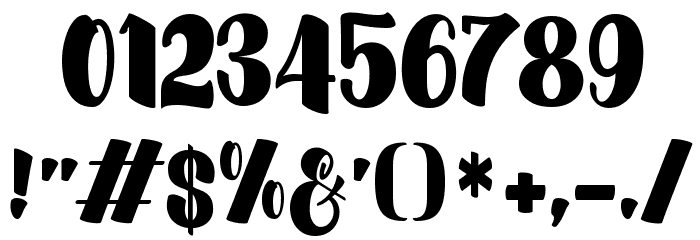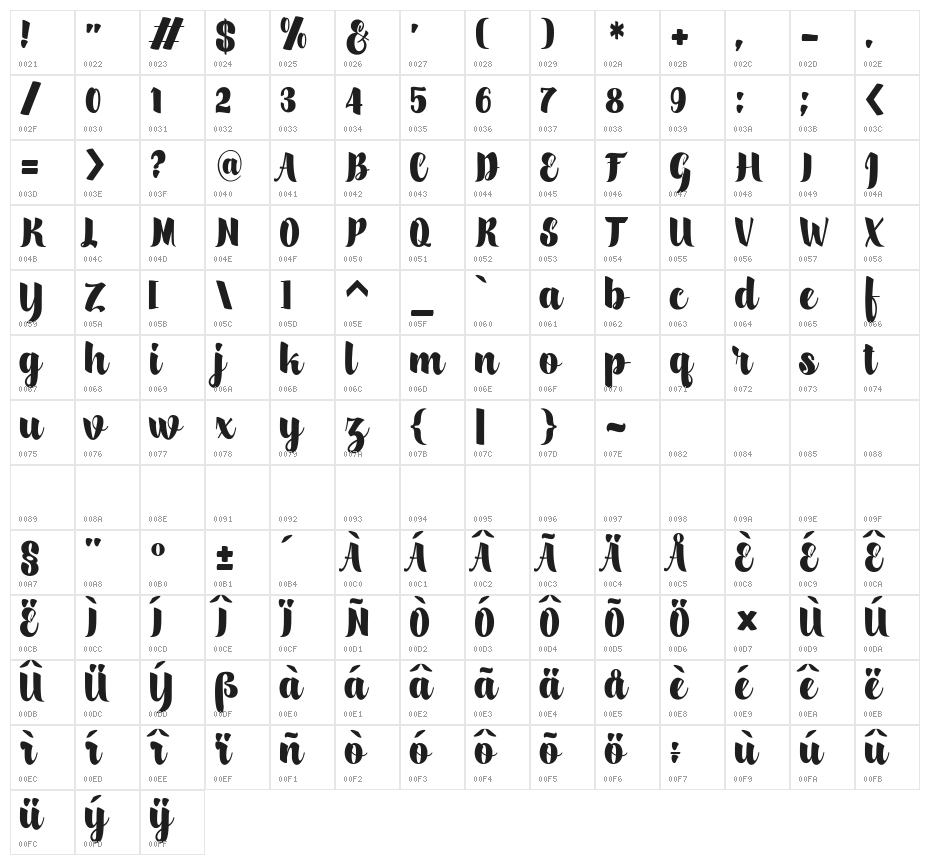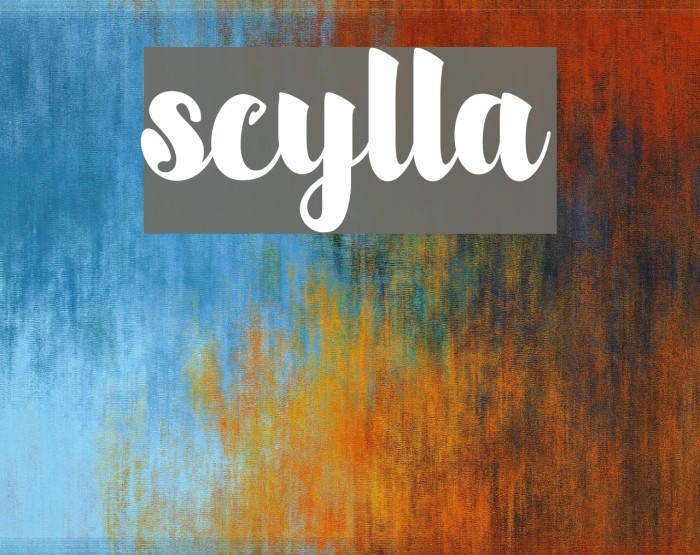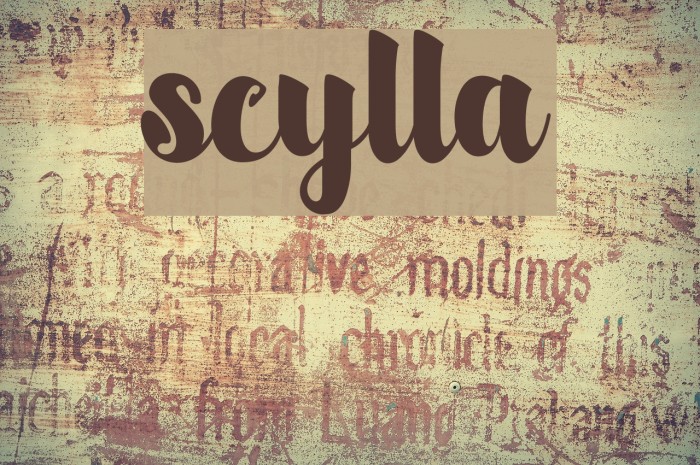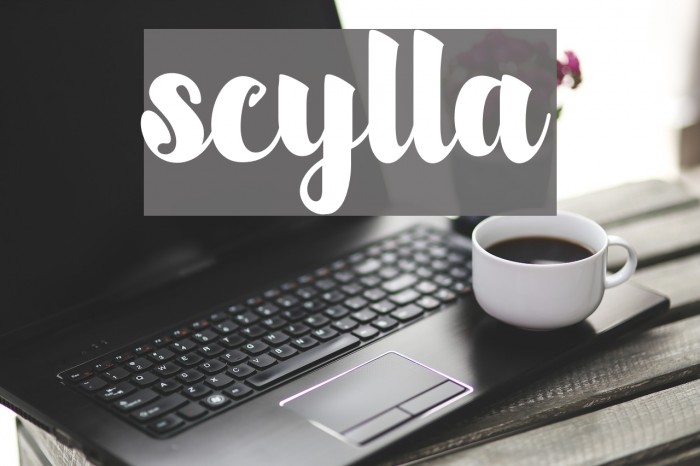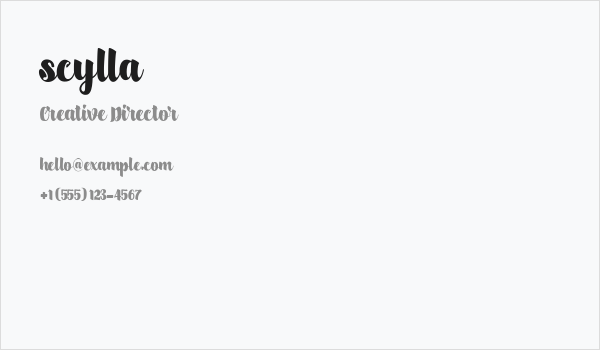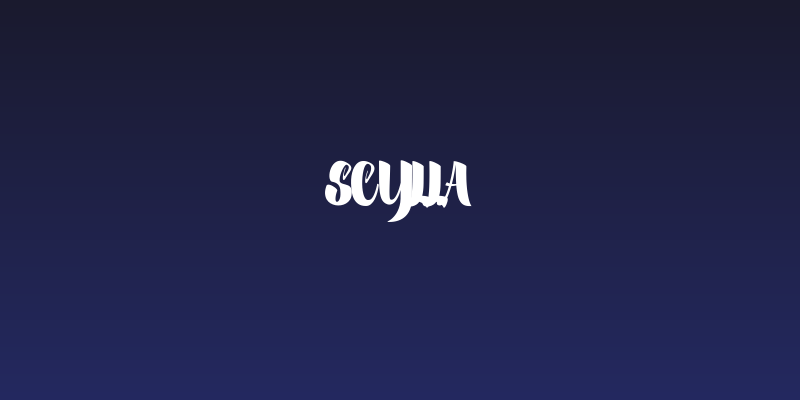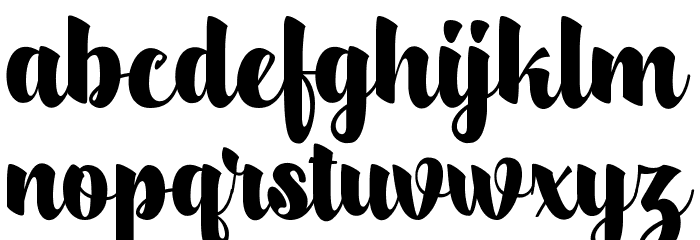
scylla Font
scylla Description
This font features a bold and expressive script style, characterized by its flowing curves and dynamic strokes. The uppercase letters exhibit a strong presence with their thick lines and elegant swashes, while the lowercase letters maintain a cohesive and fluid appearance. The numerals are equally bold, ensuring readability and impact. Special characters are designed with the same attention to detail, providing a harmonious look across all glyphs. The overall design is both playful and sophisticated, making it suitable for a variety of creative applications.
Use CaseLogos, Headlines, Invitations
Proposed ProjectsIdeal for branding, invitations, posters, and any project requiring a touch of elegance and flair.